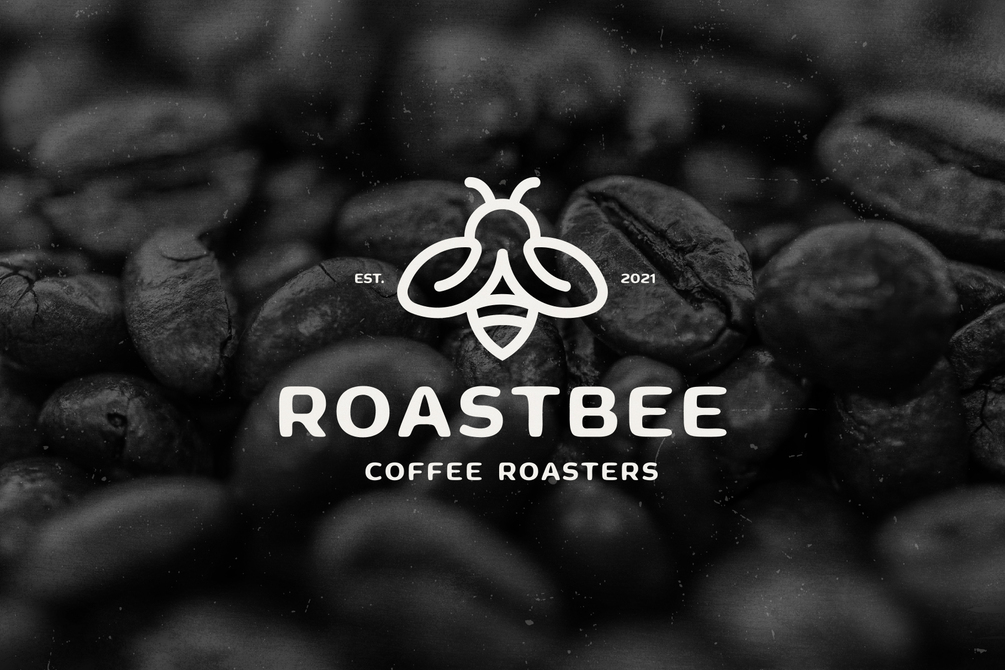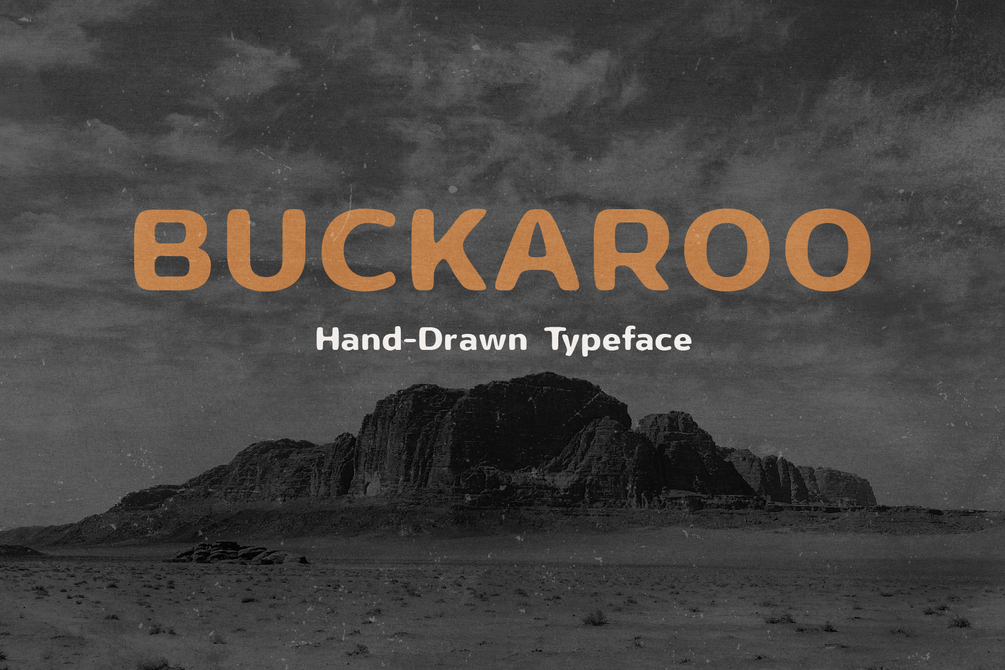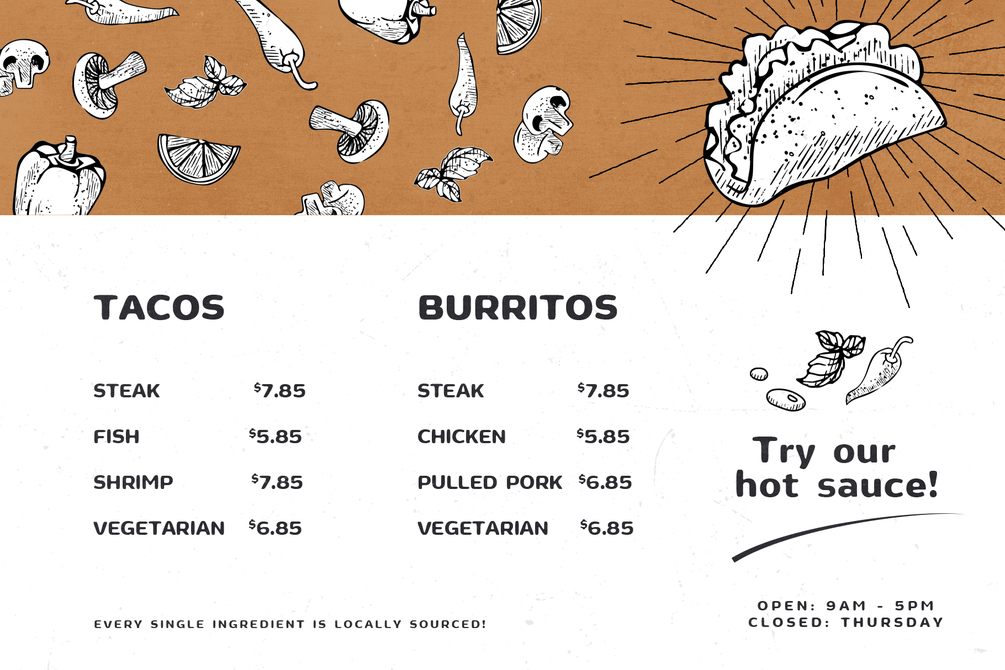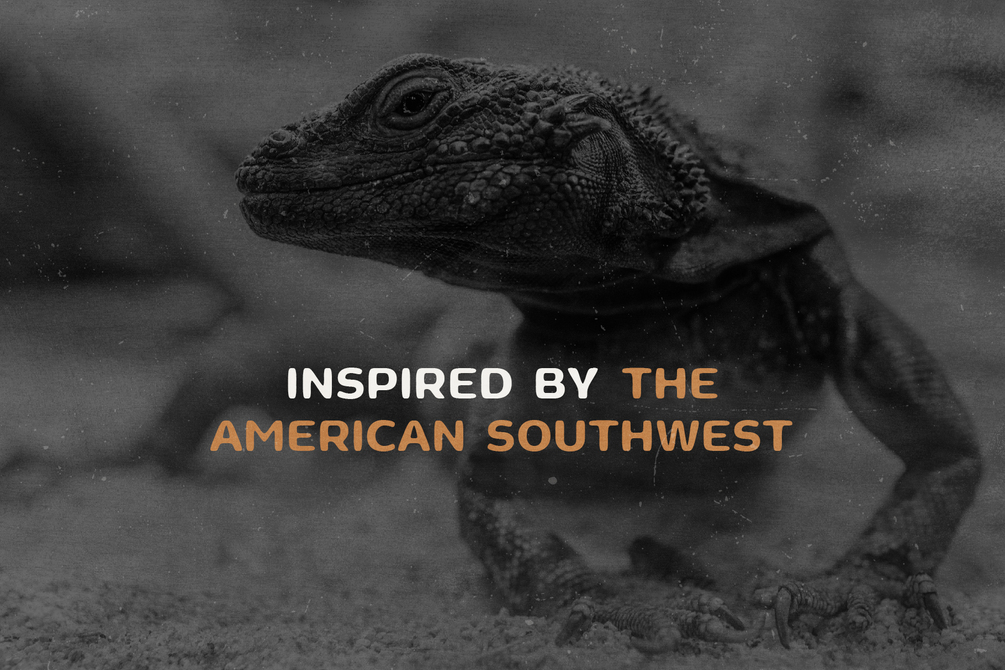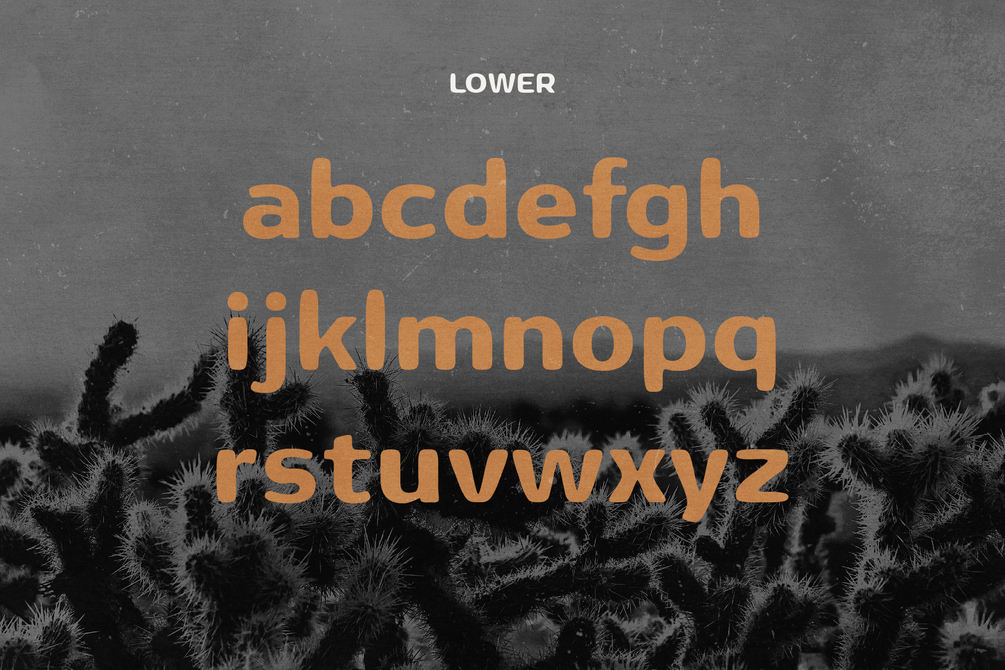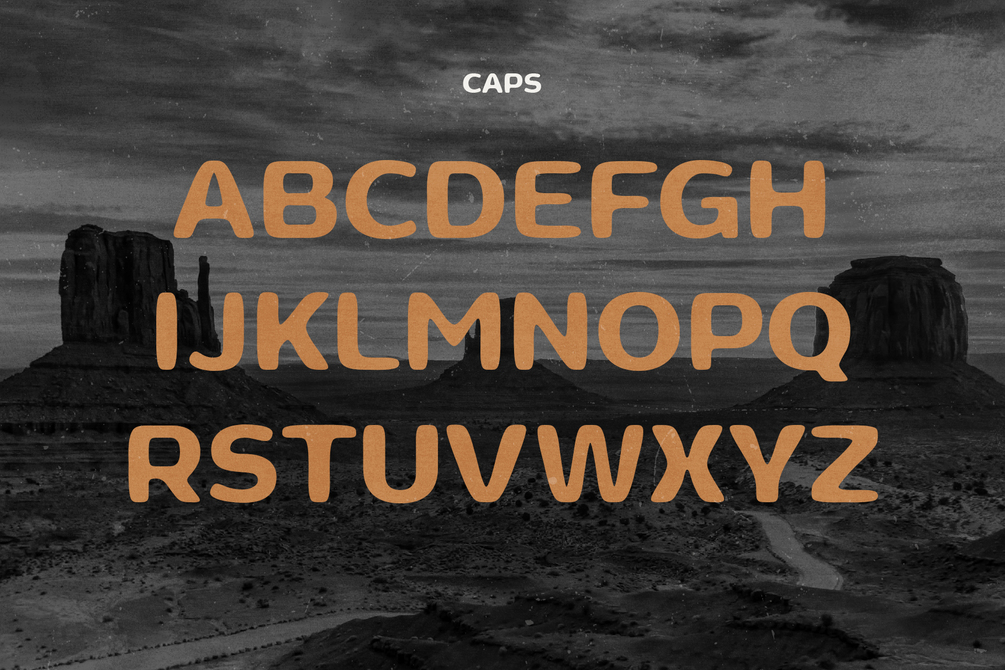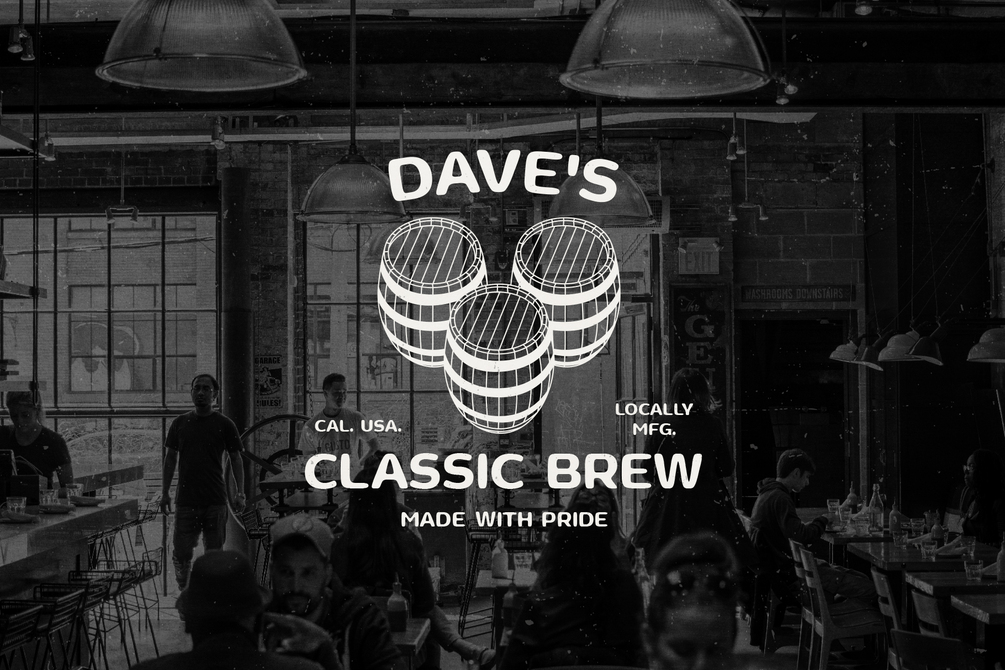
Buckaroo
Buckaroo is a handmade font inspired by American Southwest & Mexico. It draws influence from old western-typefaces that still feel functional in a contemporary world. This versatile display font includes a full set of uppercase letters, lowercase letters, numbers, and special characters.
Buckaroo is perfect for headlines, logos, badges, signage, packaging, posters, t-shirts, and much more. If you're looking for a font that will give your projects a friendly/inviting desert vibe, then Buckaroo is for you. Download includes for TTF and OTF file versions of the font. Enjoy!